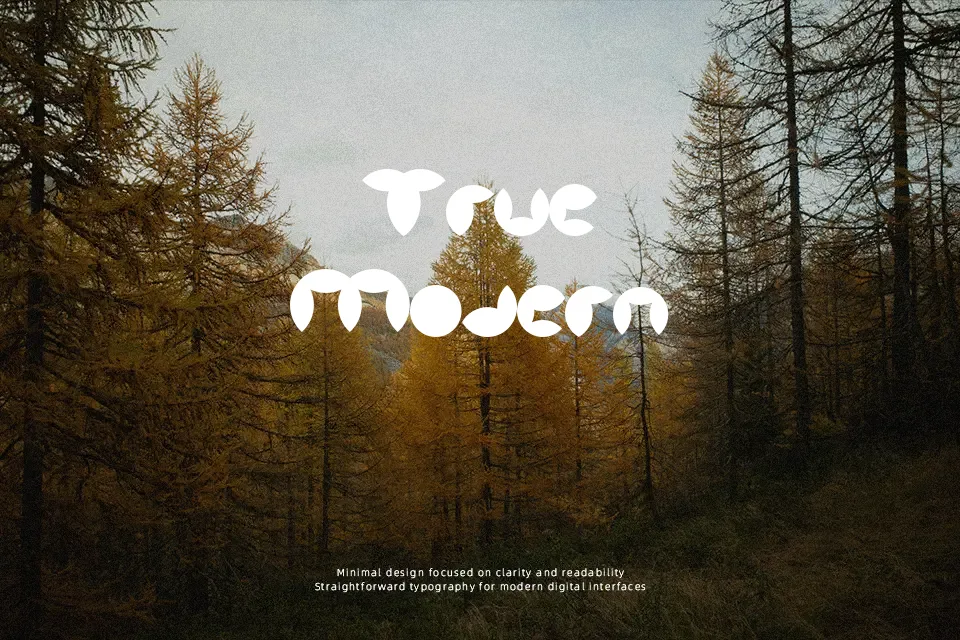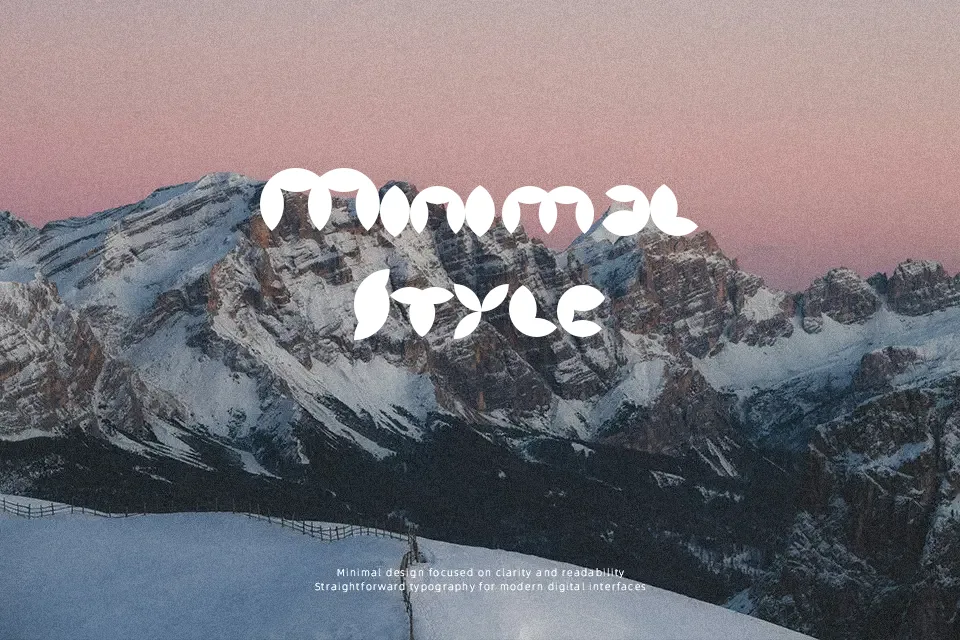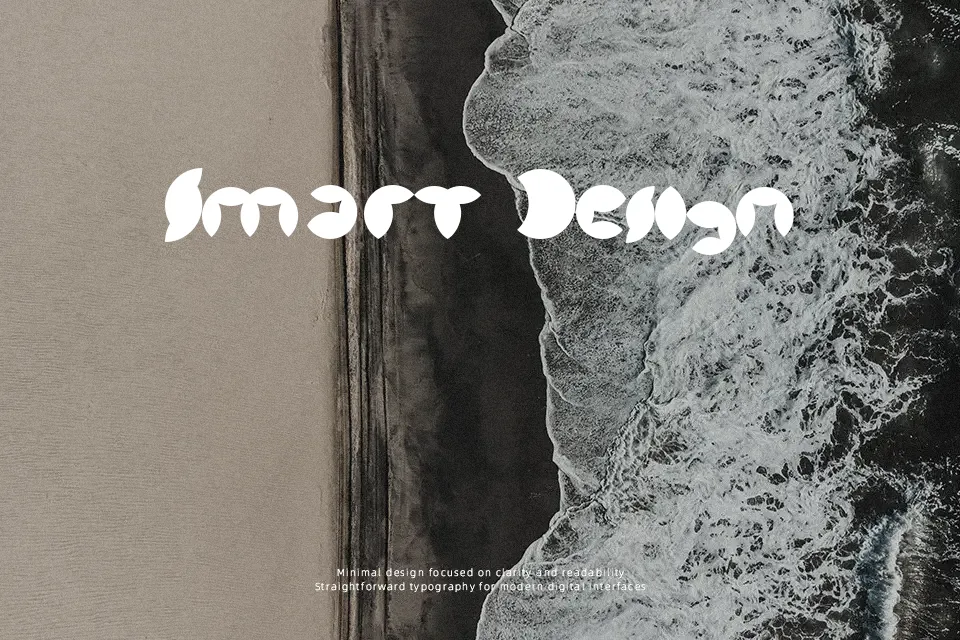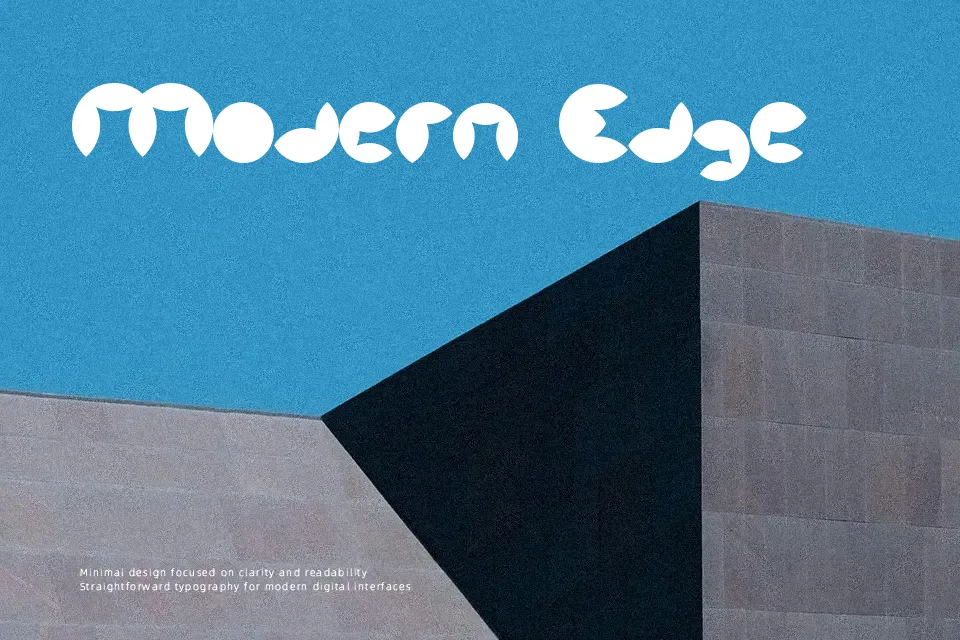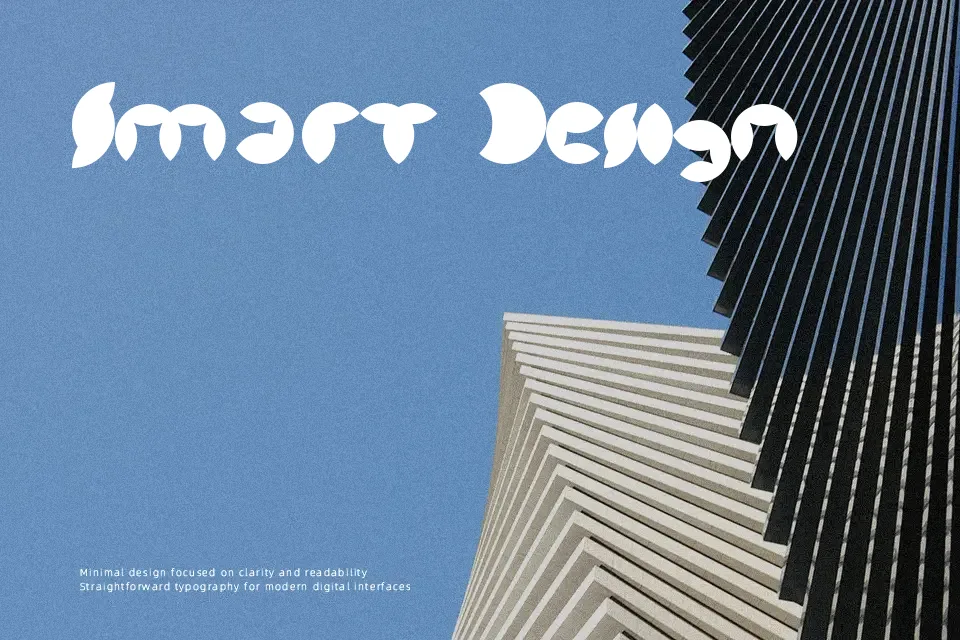
Bokeh Font
Bokeh Font by Pol is a casual display typeface that injects a retro energy into your designs. Its rounded, substantial strokes and bouncy structure draw inspiration from soft, out-of-focus photographic light circles, giving the letterforms an approachable, bubbly feel. The spacing remains relaxed, enhancing its laid-back aesthetic. This typeface shines when applied to vibrant music festival posters, youthful apparel graphics, and lively social media campaigns demanding a fun, nostalgic vibe. Compared to traditional sans serifs, Bokeh feels far more decorative and free-spirited. Due to its thick and whimsical nature, designers should avoid using it for dense body text or strict corporate reports, as the styling heavily reduces legibility at smaller scales.
Best For:Vibrant music festival posters, youthful apparel graphics, casual social media branding, eye-catching retro headlines
Not Ideal For:Dense paragraphs of body text, strict corporate and financial reports, minimalist luxury branding
Perfect for branding, headline, and music, with a creative and decorative style.